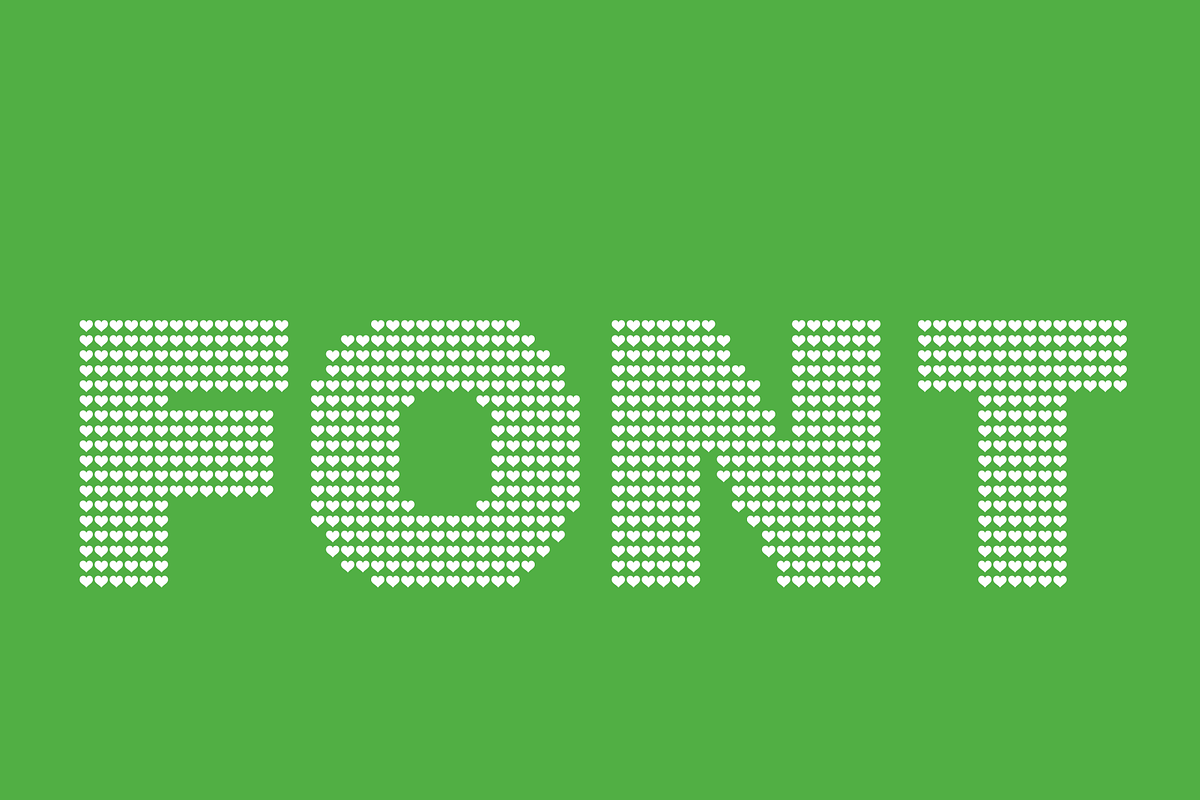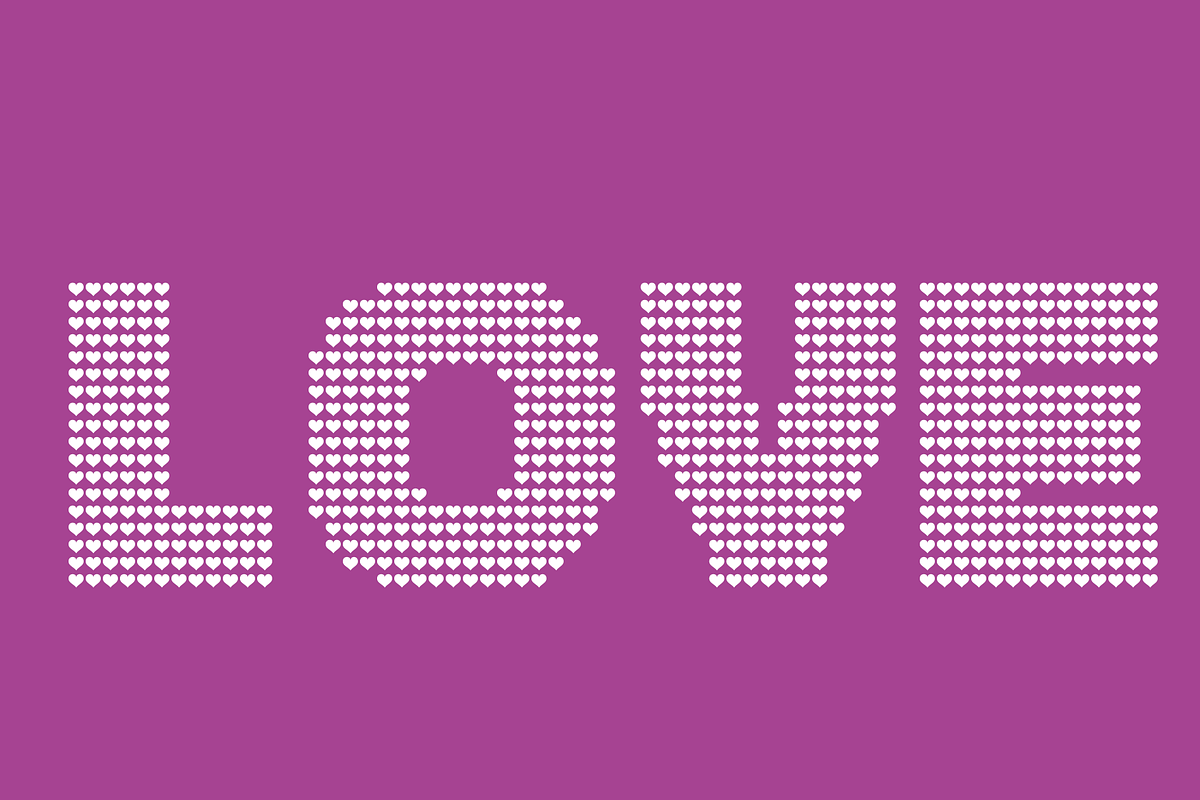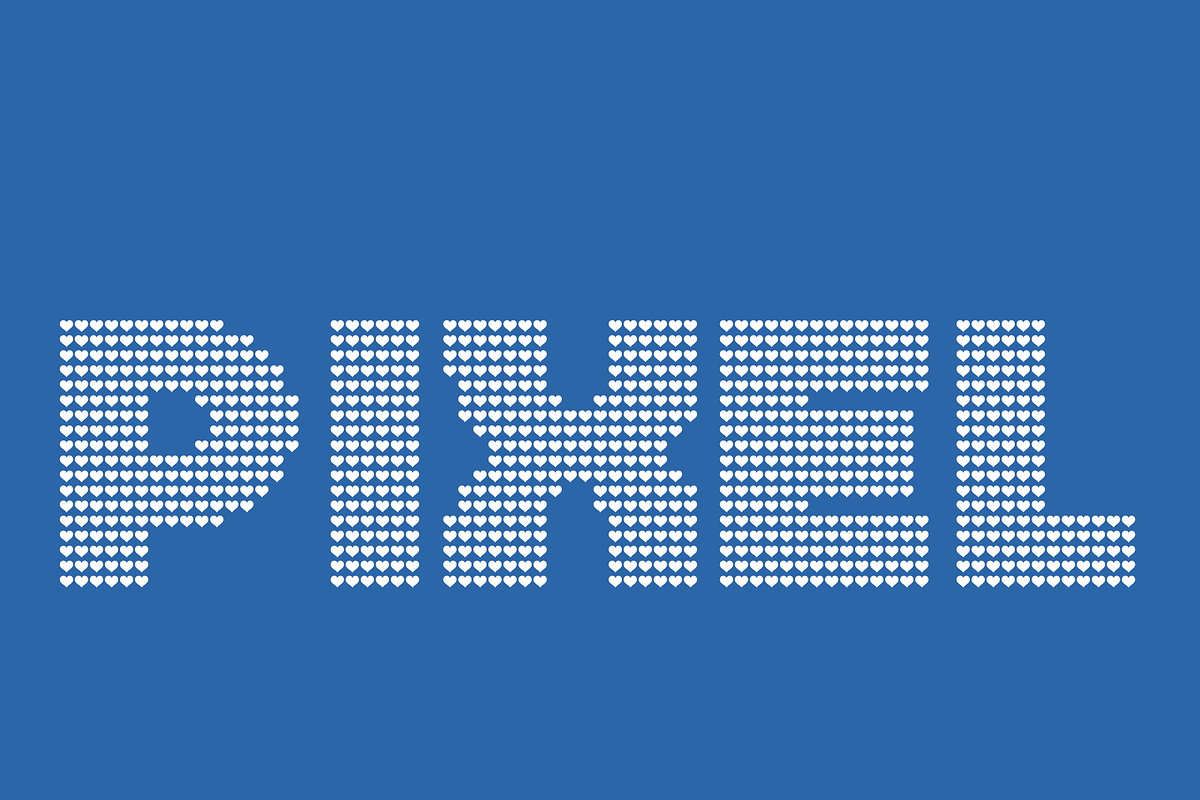
Lovechild
Introducing "Lovechild," a captivating pixel font crafted entirely out of hearts. Lovechild is a delightful typographic creation that captures the essence of love, joy, and warmth. Each character of this unique pixel font is meticulously designed with interconnected hearts, forming a harmonious and visually appealing typeface.
The Lovechild pixel font emanates a sense of playfulness and innocence, making it an ideal choice for projects that seek to evoke feelings of love, romance, or childlike wonder. The intricate heart-shaped design of each character adds a touch of whimsy, creating a distinct and memorable visual identity.
Whether used for greeting cards, wedding invitations, or branding materials, Lovechild injects a dose of charm into any design. Its soft curves and gentle lines convey a sense of tenderness and affection, infusing any text with a warm and heartfelt tone.
This pixel font's versatility extends to both bold and subtle applications. It can be used for headlines, titles, or logos to make a bold statement, as well as for body text to add a touch of whimsical elegance. The combination of a pixel aesthetic with the timeless symbol of a heart makes Lovechild an incredibly versatile typeface that transcends trends and remains relevant.
Lovechild is a celebration of love in its purest form, encapsulated within the world of typography. With its delightful heart-shaped design, this pixel font invites you to spread love and joy through your creative endeavors, capturing the attention and affection of audiences far and wide.